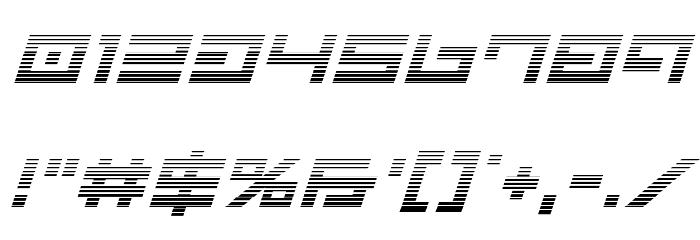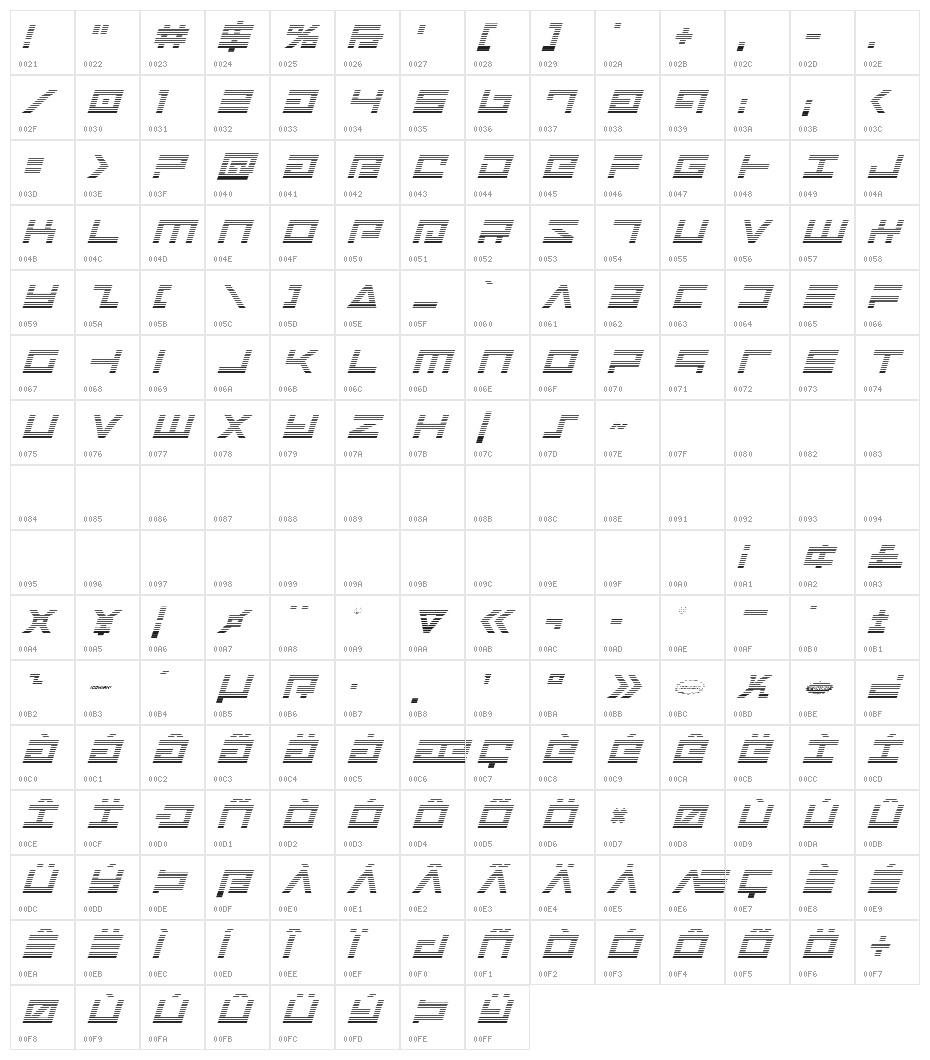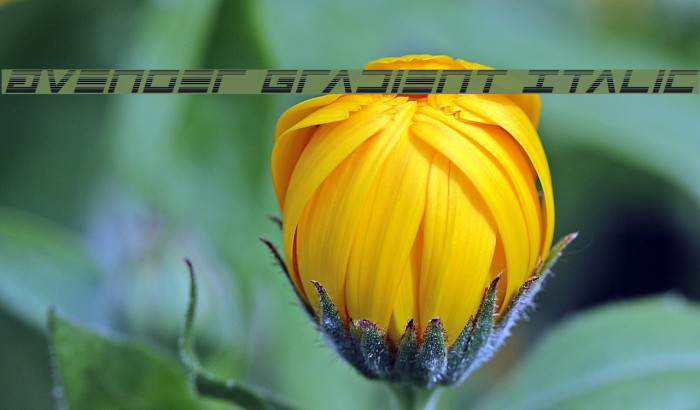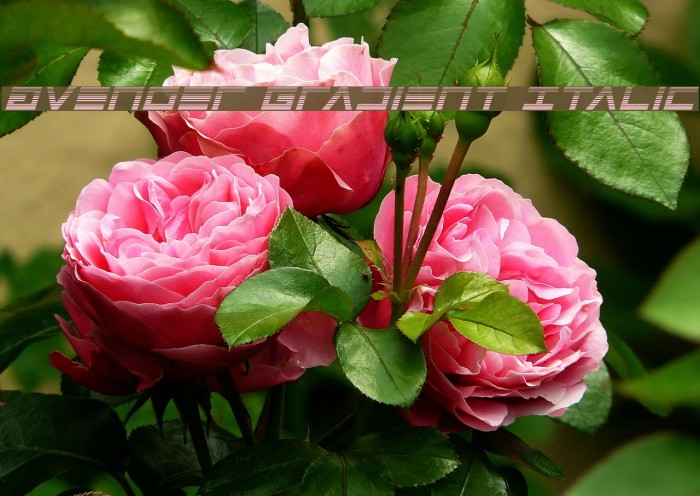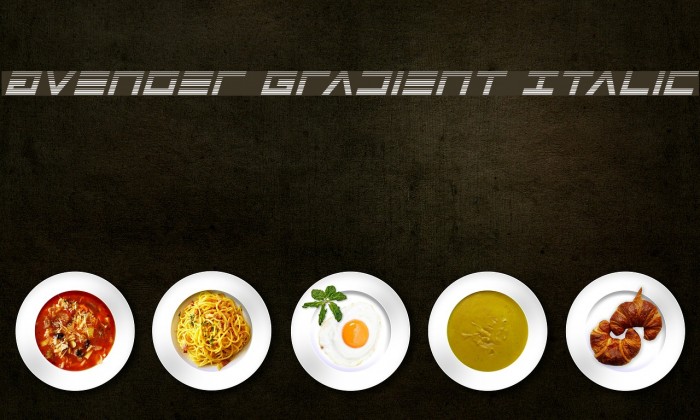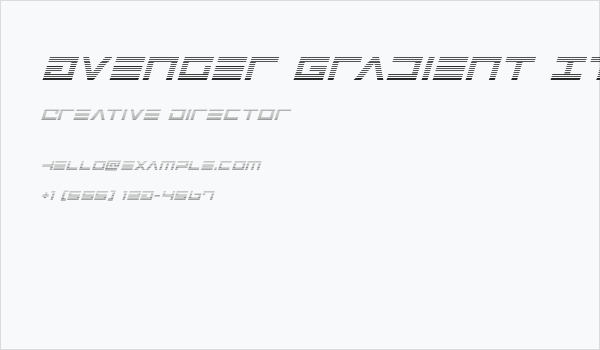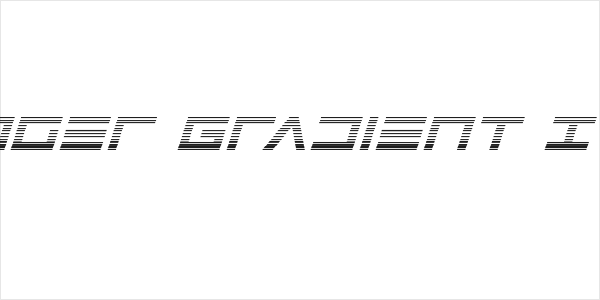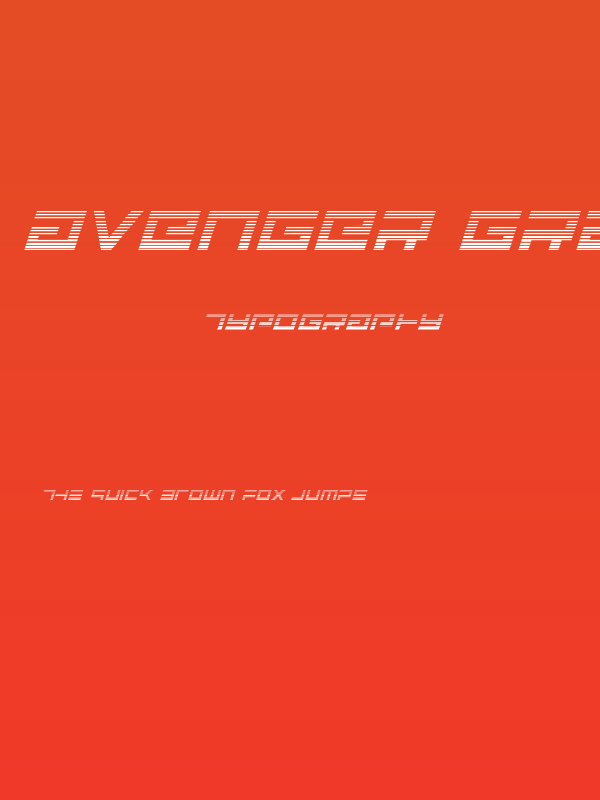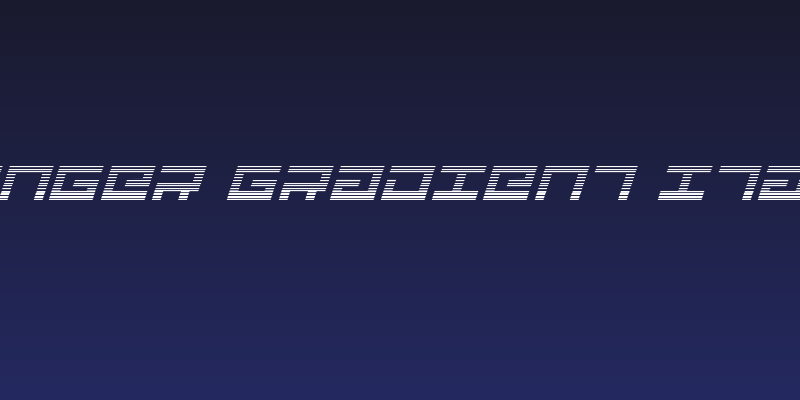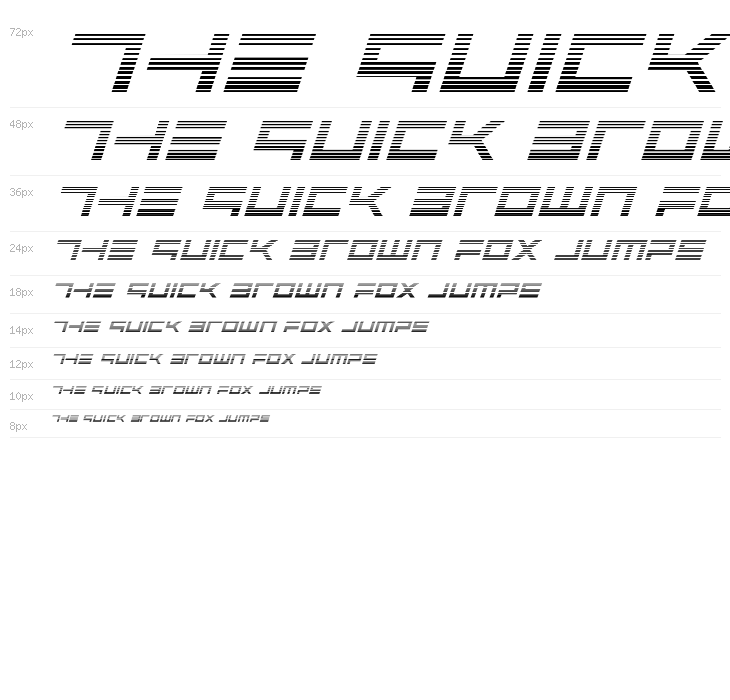
Avenger Gradient Italic Font
Avenger Gradient Italic Description
This font features a futuristic and dynamic design with a gradient effect that gives it a sense of motion and energy. The characters are italicized, adding to the sleek and modern aesthetic. The lines are composed of horizontal stripes, creating a unique visual texture. This style is reminiscent of digital or technological themes, making it suitable for projects that require a contemporary and edgy look. The uppercase and lowercase letters maintain a consistent style, with angular and geometric shapes that enhance the overall futuristic feel.
| Proposed Projects | Ideal for technology branding, sci-fi movie posters, video game titles, and digital media projects. |